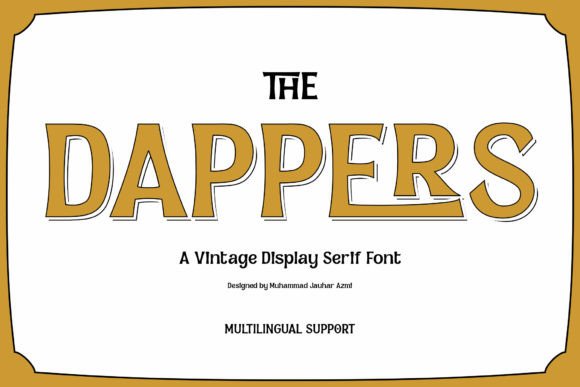
In a world of ordinary fonts, Dappers Font emerges as a captivating, vintage display serif font, ready to ignite your designs with its timeless elegance. Crafted by the Brothers Graphic, this font family is a visual symphony, featuring a repertoire of ligatures that dance across your designs, adding a touch of artistry to every letter.
Dappers is not just a font; it's an expression of individuality, a statement of style that commands attention. Its serifs, reminiscent of a bygone era, evoke a sense of nostalgia, while its modern twist adds a touch of contemporary flair. Whether you're designing a logo, creating promotional material, or embarking on any design project, Dappers will elevate your creations, making them stand out from the mundane.
Imagine your designs adorned with Dappers' graceful curves and intricate details. Your logo will radiate sophistication, your promotional designs will captivate audiences, and your projects will exude an air of timeless charm. Dappers is more than just a font; it's a gateway to a world of visual allure, where your creativity knows no bounds.
With Dappers at your fingertips, you'll discover a font that's as versatile as it is beautiful. Its ability to adapt to any design concept is truly remarkable. Whether you're working on a vintage-inspired project or a modern masterpiece, Dappers will seamlessly blend in, enhancing your designs with its timeless appeal. So, why settle for ordinary fonts when you can embrace the extraordinary with Dappers?